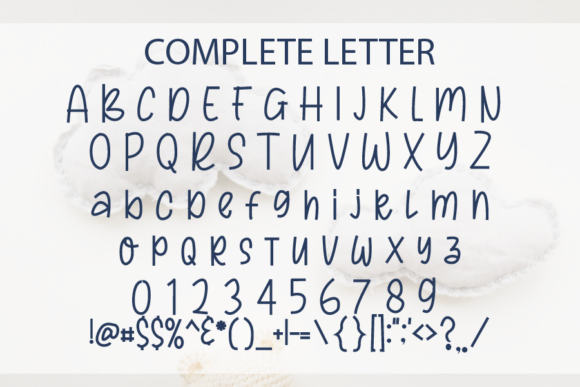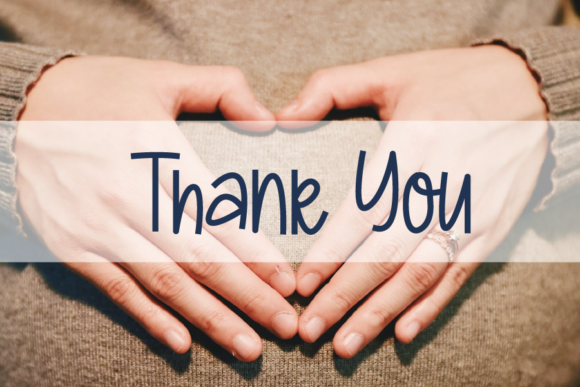
Baby Wush Font: The Perfect Choice for Designers and Crafters
In the world of typography, fonts play a crucial role in conveying messages, expressing emotions, and creating visual identities. For designers and crafters, finding the right font can make all the difference in their creative projects. If you’re looking for a simple yet bouncy display font that can add a touch of playfulness to your designs, look no further than Baby Wush Font.
What is Baby Wush Font?
Baby Wush Font is a modern display font that is designed to be simple, yet fun and bouncy. Its unique character set and carefree vibe make it perfect for a wide range of creative projects, from logos and wedding invitations to headings, t-shirts, and more.
Key Features of Baby Wush Font
- Simple and Bouncy Design: Baby Wush Font features a simple, yet bouncy design that adds a touch of playfulness to any project.
- Versatile: This font can be used for various purposes, including logos, wedding invitations, headings, t-shirts, letterhead, signage, labels, news, posters, badges, and more.
- Easily Readable: Despite its playful design, Baby Wush Font is easily readable, making it perfect for both digital and print projects.
- High-Quality: Baby Wush Font is a high-quality font that is designed to deliver exceptional results in any project.
Use Cases for Baby Wush Font
Baby Wush Font is a versatile font that can be used in a variety of creative projects. Here are some use cases to get you started:
- Logos: Create a fun and playful logo for your business or brand with Baby Wush Font.
- Wedding Invitations: Add a touch of whimsy to your wedding invitations with this beautiful font.
- Headings: Use Baby Wush Font to create eye-catching headings for your blog posts, articles, or website.
- T-Shirts: Design fun and playful t-shirts with Baby Wush Font that’s perfect for kids and adults alike.
- Signage: Create eye-catching signage for your business or event with this bouncy font.
Why Choose Baby Wush Font?
With so many fonts available, why choose Baby Wush Font? Here are a few reasons why designers and crafters love this font:
- Unique Design: Baby Wush Font features a unique design that’s sure to stand out in any project.
Tips for Using Baby Wush Font
Here are a few tips for using Baby Wush Font in your creative projects:
- Experiment with Sizes: Try out different font sizes to see how Baby Wush Font looks in various contexts.
- Pair with Other Fonts: Experiment with pairing Baby Wush Font with other fonts to create a unique visual identity.
- Use in Combination with Images: Use Baby Wush Font in combination with images to create visually appealing designs.
In conclusion, Baby Wush Font is a simple and bouncy display font that’s perfect for designers and crafters looking to add a touch of playfulness to their creative projects. With its unique design, versatility, and ease of use, this font is sure to become a favorite in your font collection. So why wait? Download Baby Wush Font today and start creating fun and playful designs that will leave a lasting impression!